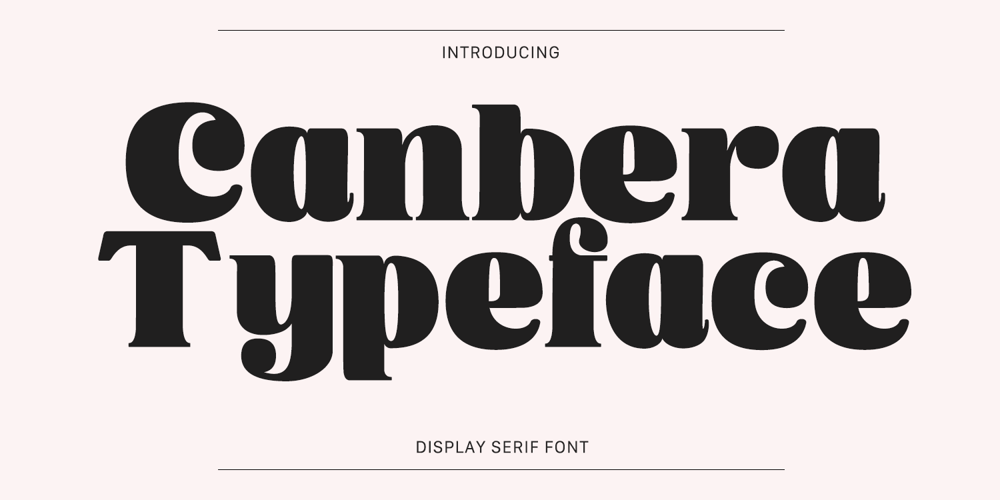
Canbera Font Family was designed by Agam Rahmadan and published by Viswell. Canbera contains 1 styles and family package options. Canbera is an old style serif font, its funky, round, hight-contrast and bold shape with a retro touch is perfect for displayed, head text, logotype and many more.